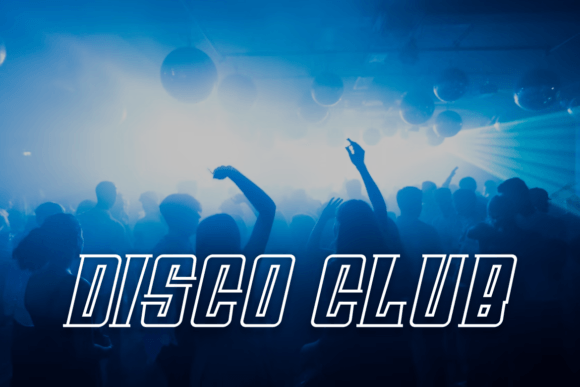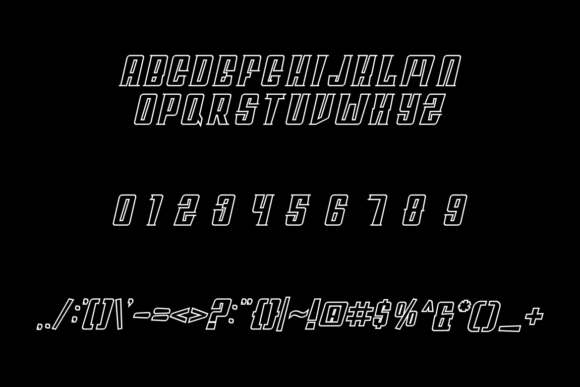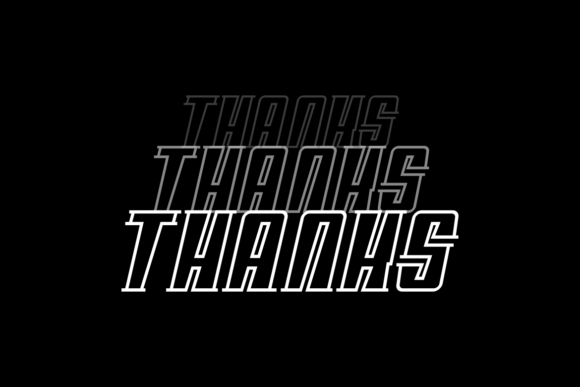
Introducing Besipop Font: The Cool and Modern Display Font You Need
Are you tired of using the same old fonts in your design projects? Do you want to add a touch of modernity and coolness to your creations? Look no further than Besipop Font! This stunning display font is perfect for designers and crafters who want to take their work to the next level. In this article, we’ll dive into the world of Besipop Font and explore its features, benefits, and uses.
What is Besipop Font?
Besipop Font is a cool and modern display font designed to make a statement. Its unique and stylish lettering makes it perfect for a variety of design projects, from logos and branding to posters, flyers, and social media graphics. With its clean lines, elegant curves, and modern aesthetic, Besipop Font is sure to turn heads.
Key Features of Besipop Font
- Modern and Cool Design: Besipop Font boasts a sleek and contemporary design that’s perfect for designers who want to create fresh and eye-catching graphics.
- High-Quality Letters: The font features high-quality letters with clean lines, elegant curves, and precise craftsmanship.
- Easy to Read: Despite its modern and stylized design, Besipop Font is easy to read, making it perfect for use in a variety of applications.
- Versatile: Besipop Font can be used in a range of design projects, from logos and branding to posters, flyers, and social media graphics.
Benefits of Using Besipop Font
So, why should you choose Besipop Font for your design projects? Here are just a few benefits of using this amazing font:
- Adds a Touch of Modernity: Besipop Font adds a touch of modernity and coolness to your designs, setting them apart from the crowd.
- Enhances Creativity: With its unique and stylish lettering, Besipop Font can inspire your creativity and help you think outside the box.
- Saves Time: Besipop Font is easy to use and customize, saving you time and effort in your design projects.
- Professional Results: With Besipop Font, you can achieve professional-looking results that will impress your clients and audience.
Who Can Benefit from Besipop Font?
Besipop Font is perfect for a range of designers and crafters, including:
- Graphic Designers: Graphic designers can use Besipop Font to create stunning logos, branding, and marketing materials.
- Digital Artists: Digital artists can use Besipop Font to add a touch of modernity and coolness to their artwork.
- Crafters: Crafters can use Besipop Font to create beautiful and unique handmade projects, such as cards, scrapbook pages, and DIY signs.
- Social Media Influencers: Social media influencers can use Besipop Font to create eye-catching social media graphics and posts.
How to Use Besipop Font
Using Besipop Font is easy! Here are a few tips to get you started:
- Customize to Your Liking: Customize Besipop Font to your liking by adjusting the size, color, and style to fit your design needs.
- Experiment and Have Fun: Experiment with Besipop Font and have fun with it! Try out different combinations and styles to create unique and eye-catching designs.